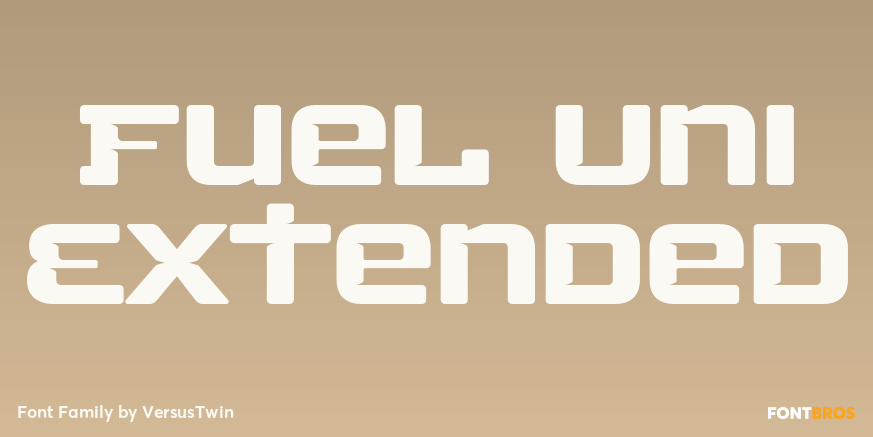
Fuel Uni Extended
The Fuel Uni Extended typefaces are a modern update on the techno sans extended for stronger impact, adding further versatility with unicase design complete with soft rounded corners as well as decorative inktraps. Stylistic Alternates included within…